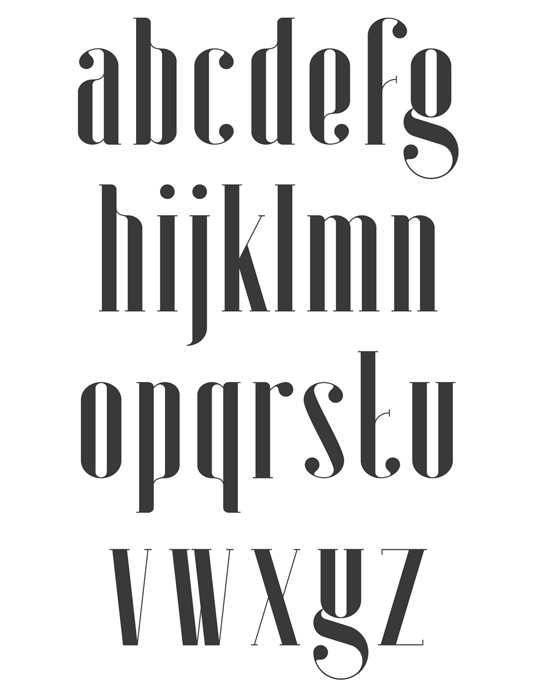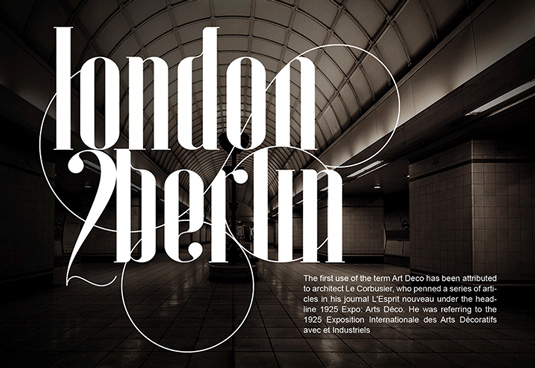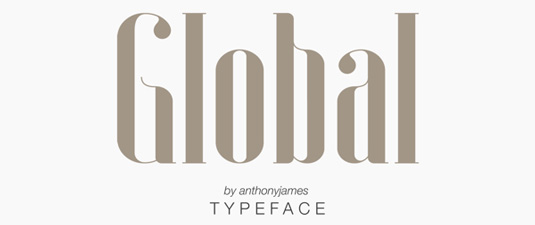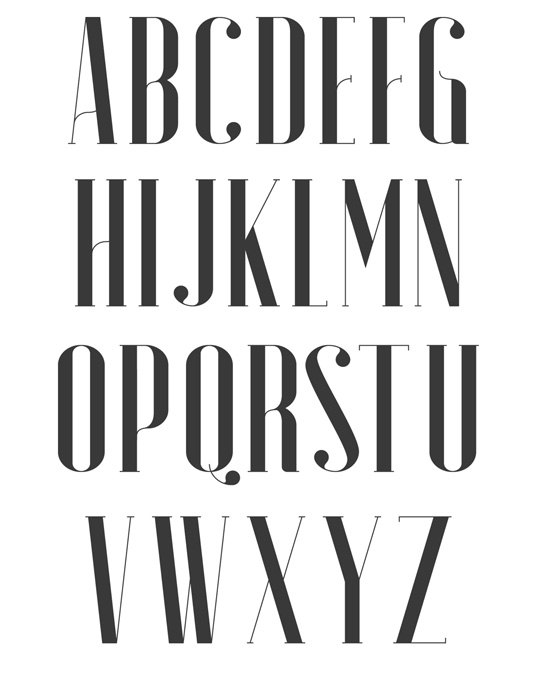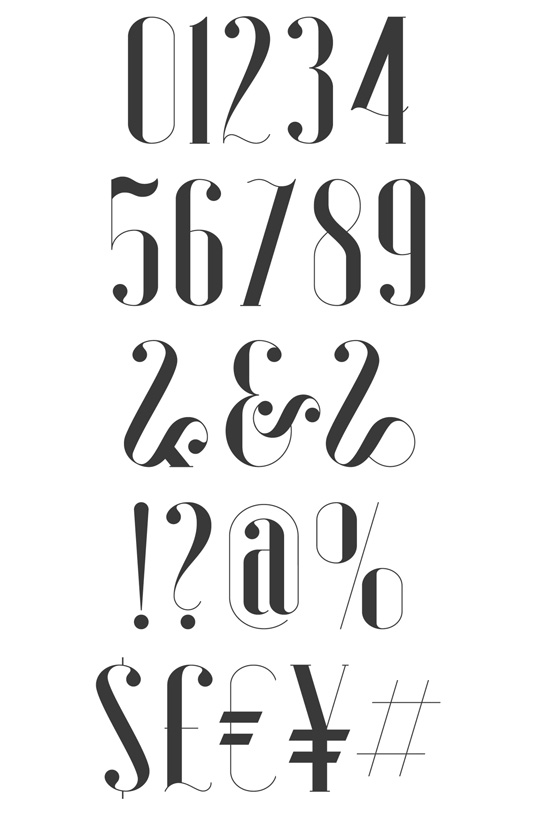
Global by Anthony James
Art Deco-inspired font Global was created by type designer Anthony James. "Global is a serif typeface with multilingual applications," James comments. "Slender lines and great legibility make it perfect as a display font. With curves in all the right places, it is great for editorials and other commercial use."